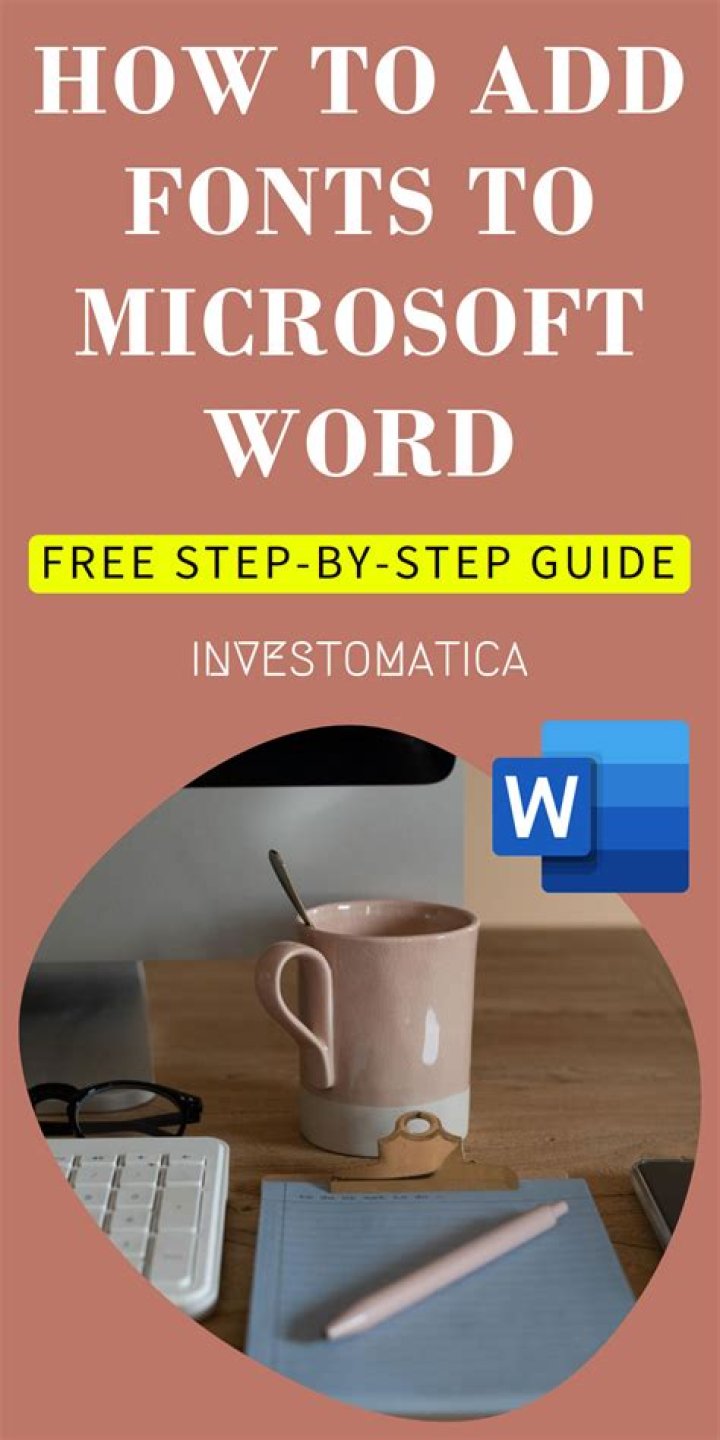
What are the Chinese fonts in Microsoft Word?
The two basic groups of Chinese fonts are songti (宋体), which you could think about as the Chinese serif, and heiti (黑体) — the Chinese version of sans serif, respectively.